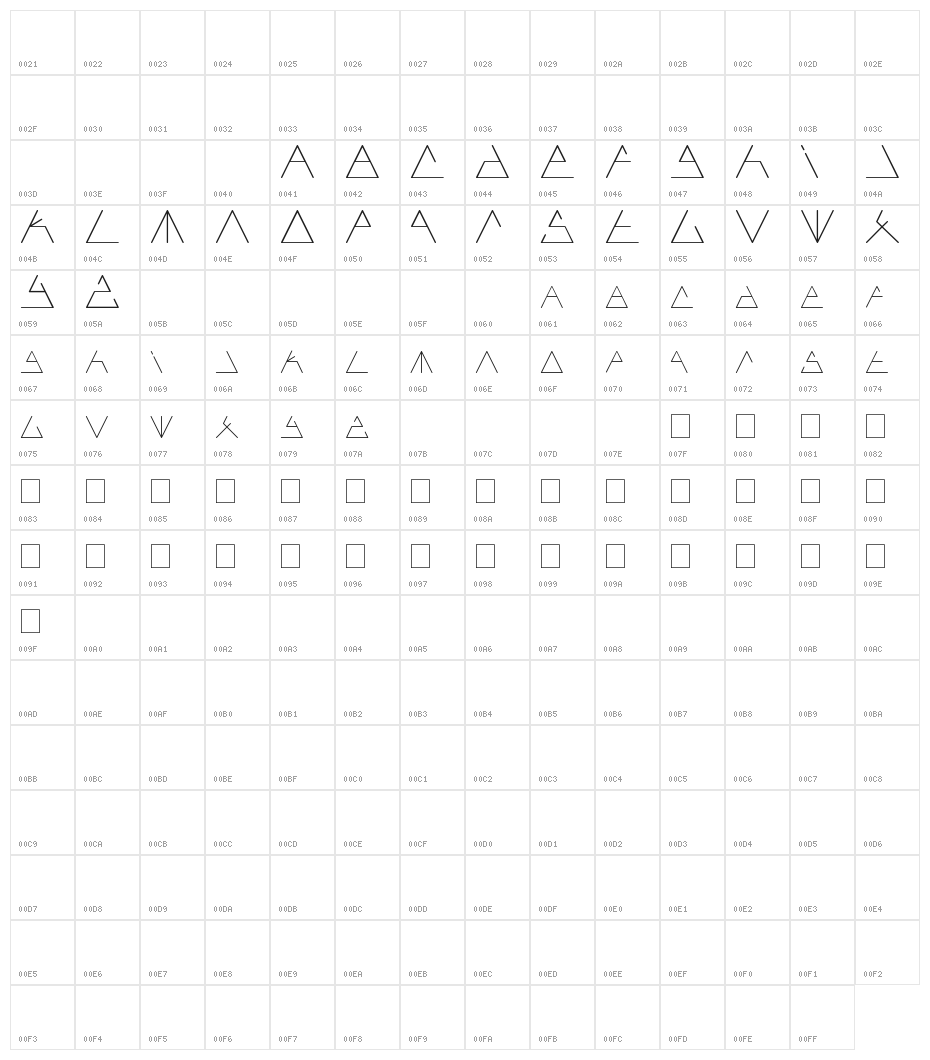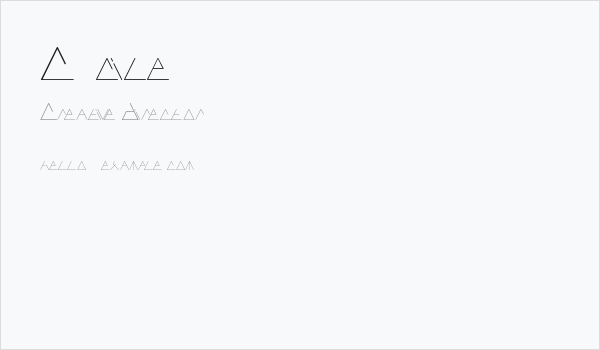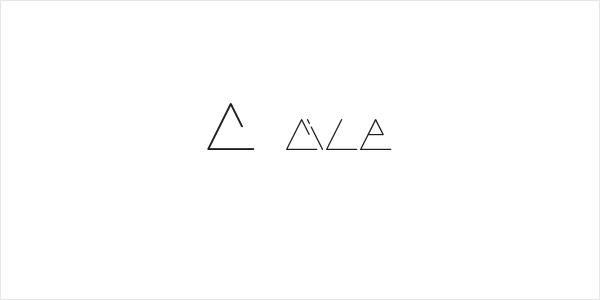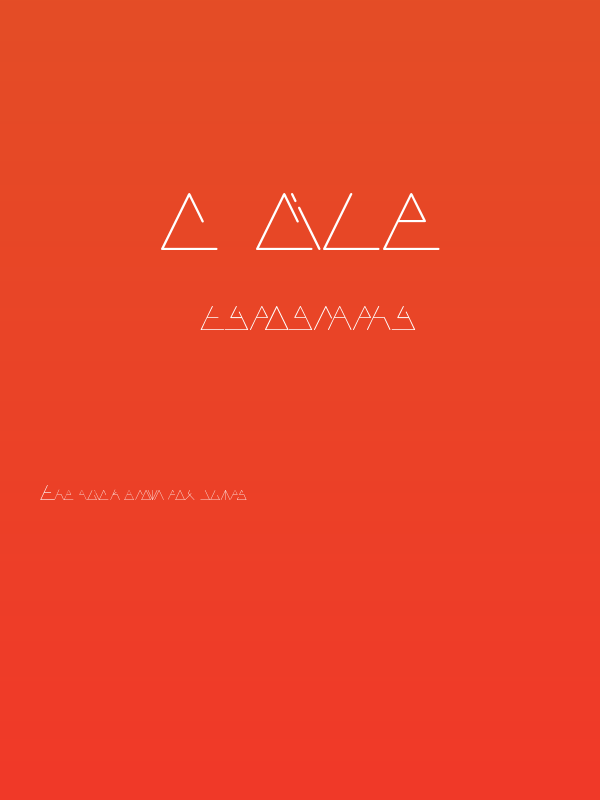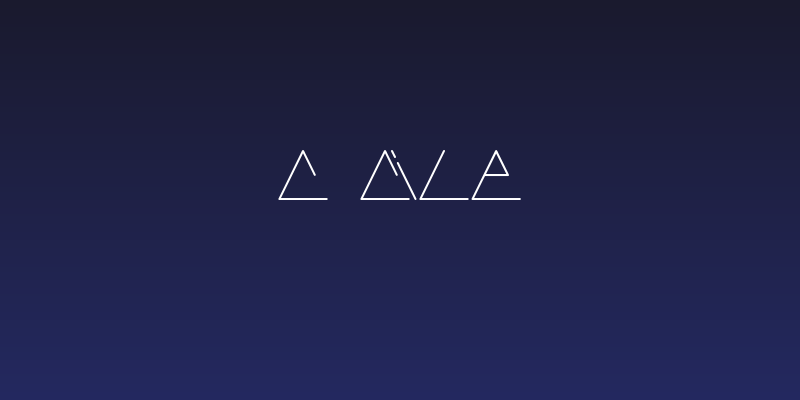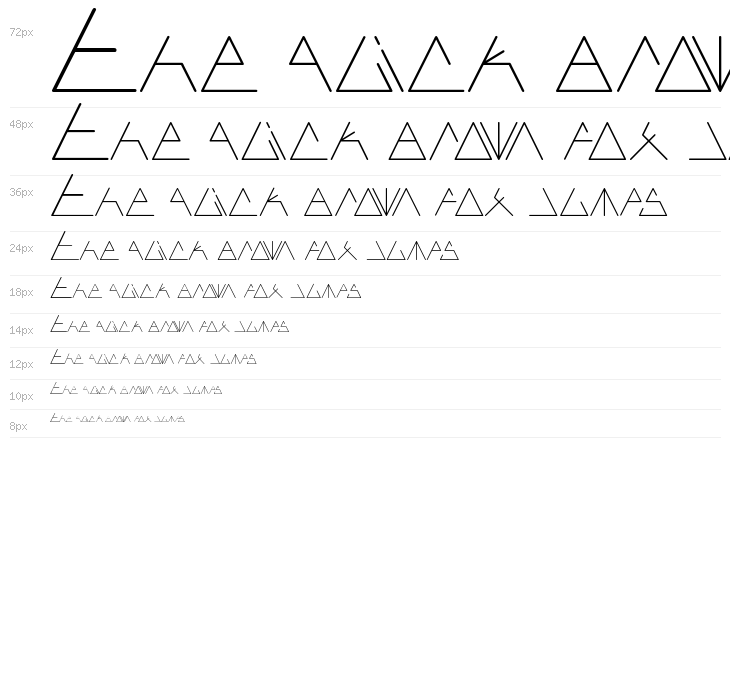
Cécile Font
Cécile Description
This font features a highly geometric and abstract design, characterized by sharp angles and straight lines that form each letter. The style is reminiscent of minimalist or futuristic aesthetics, with a focus on simplicity and clarity. Each character is constructed using a combination of diagonal and horizontal lines, creating a unique and modern appearance. The font lacks curves, giving it a distinctly angular look that stands out. This design approach results in a striking visual impact, making it suitable for creative and contemporary projects.
| Proposed Projects | Ideal for modern branding, futuristic posters, digital art, and innovative product packaging. |